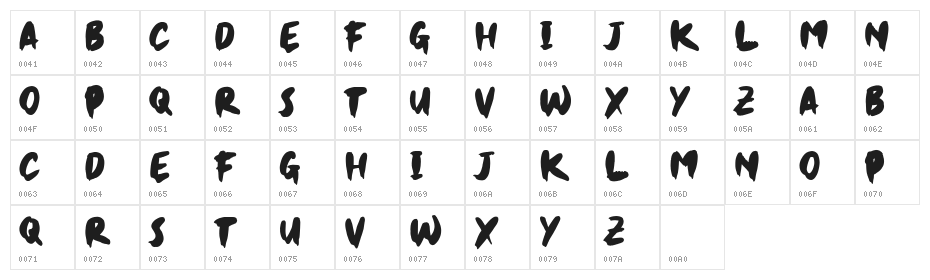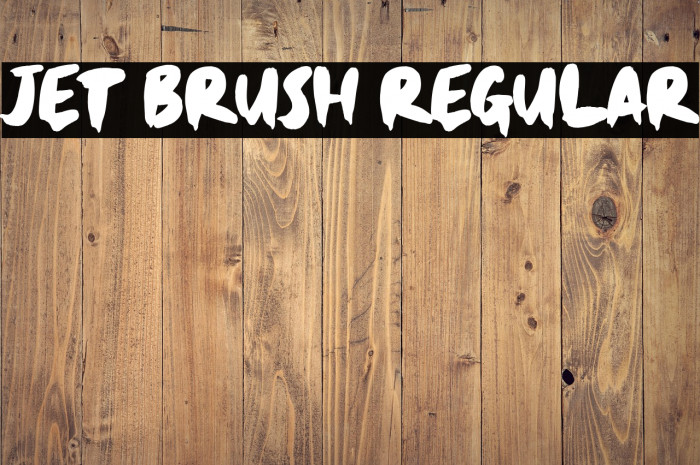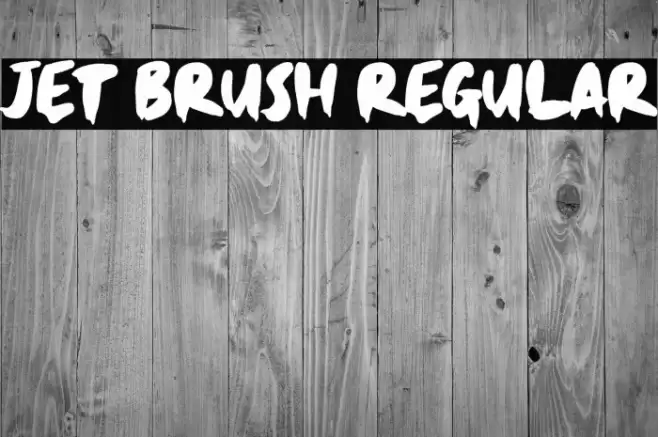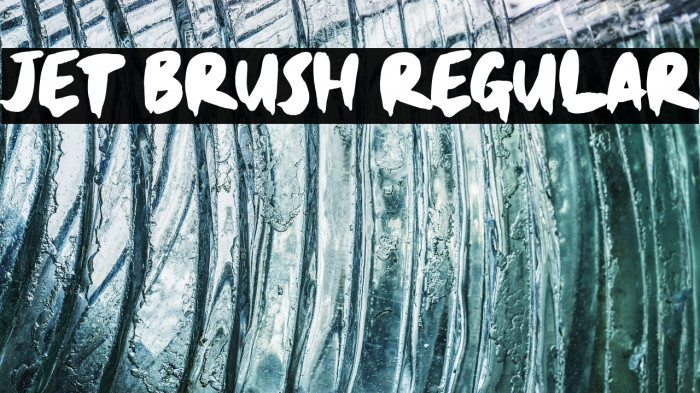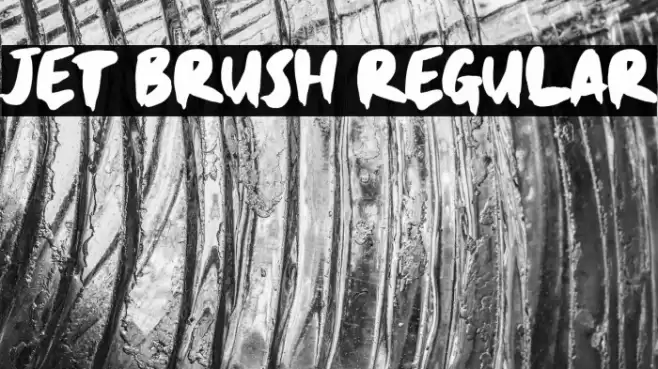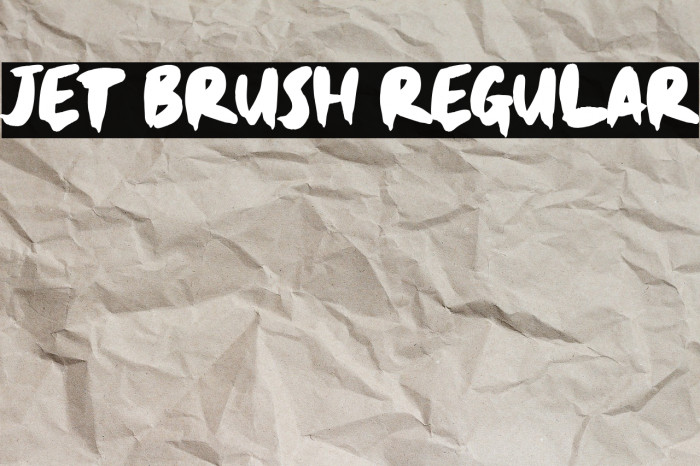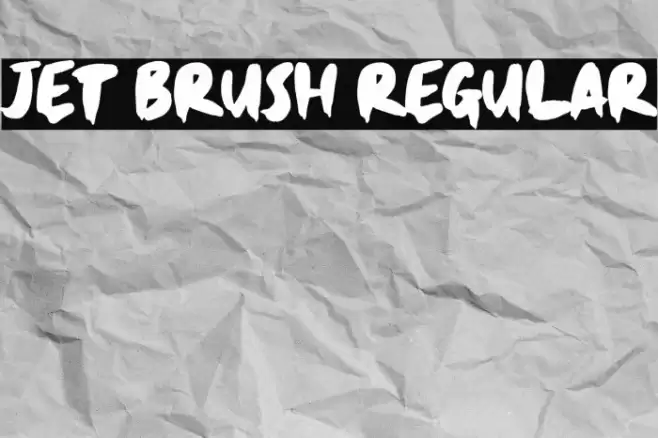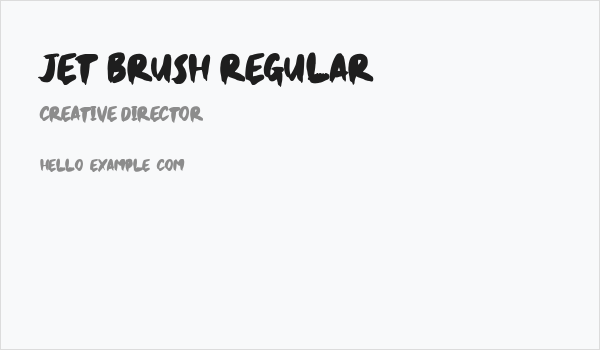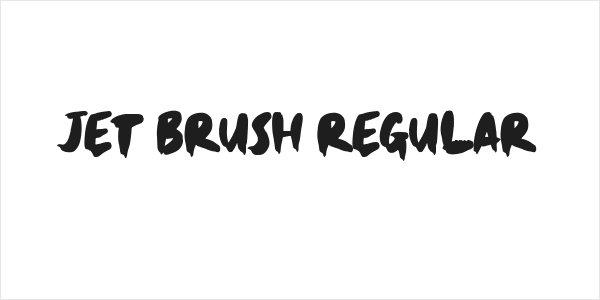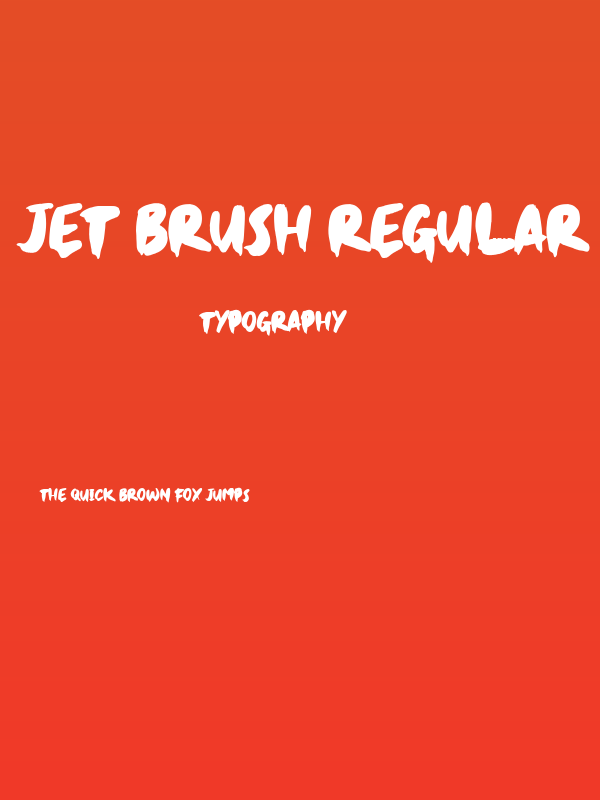
Jet Brush Regular Font
Jet Brush Regular Description
This font features a bold, expressive brush style that exudes energy and dynamism. Each character is crafted with a thick, textured stroke, giving it a hand-painted appearance. The letters are slightly irregular, adding a sense of authenticity and movement. The uppercase and lowercase letters maintain a consistent style, with rounded edges and a playful, artistic flair. The numbers and special characters are equally bold and maintain the same brush-like quality. This font is perfect for projects that require a personal touch or a creative, artistic vibe.
| Proposed Projects | Ideal for branding, posters, artistic projects, social media graphics, and any design needing a bold, creative touch. |